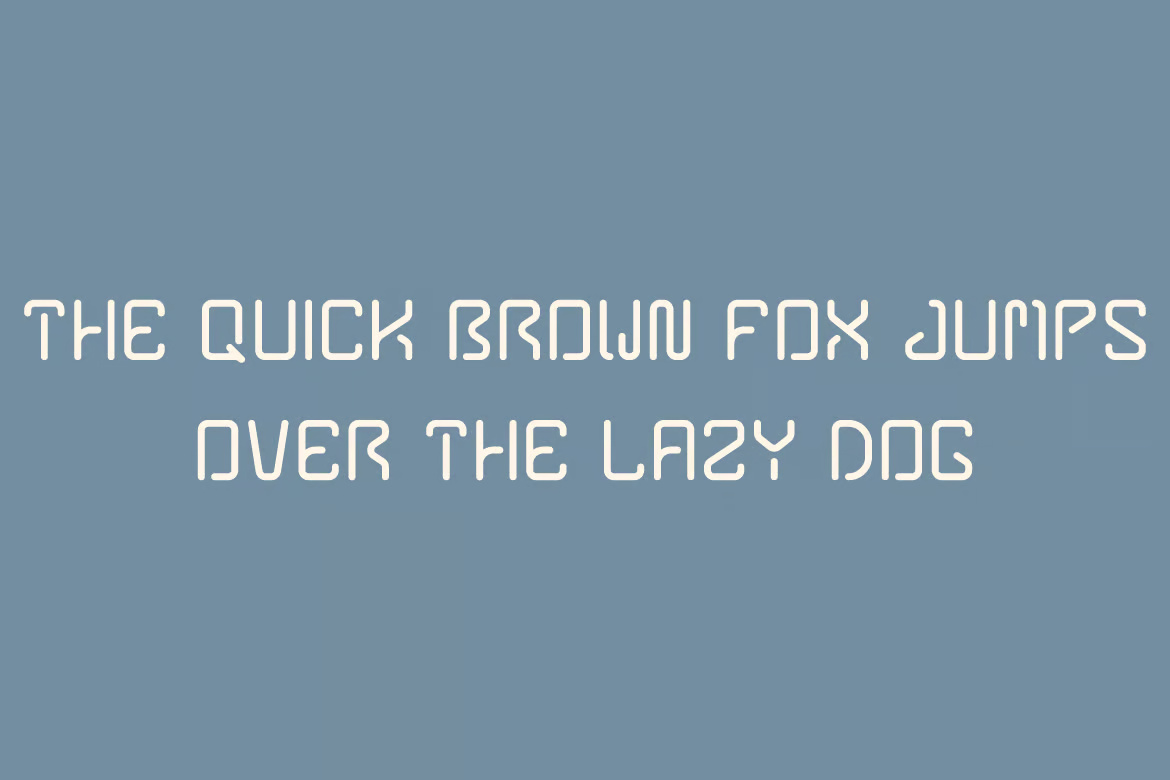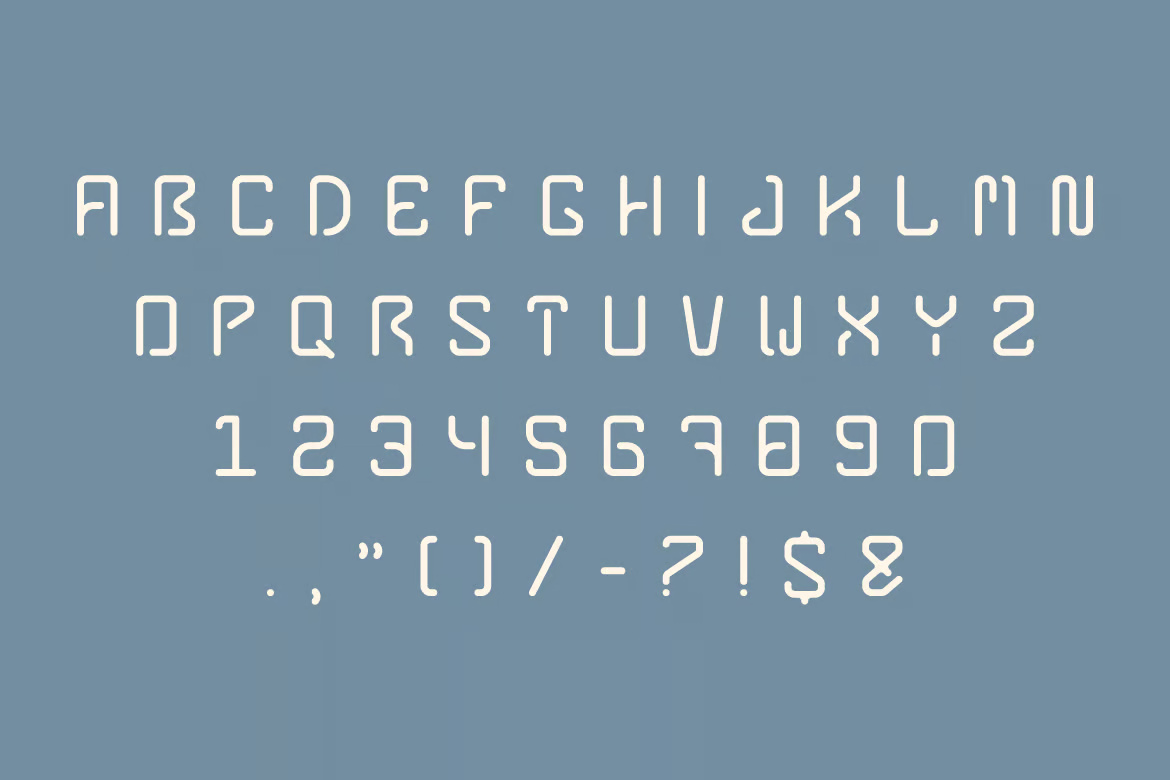
Mardeq -Technology Font
Mardeq is a sleek, futuristic technology font designed to embody innovation and modern digital aesthetics. Featuring sharp edges, geometric precision, and a high-tech feel, Mardeq is the perfect choice for tech branding, sci-fi projects, gaming, UI/UX design, and cyber-inspired visuals. Its bold, dynamic letterforms exude a sense of advancement and digital sophistication, making it ideal for projects that require a cutting-edge, forward-thinking look. Whether used in high-energy gaming interfaces or sleek tech product designs, Mardeq ensures a striking and modern presence.
Mardeq -Technology Sans-Serif Font
Mardeq -Technology Font